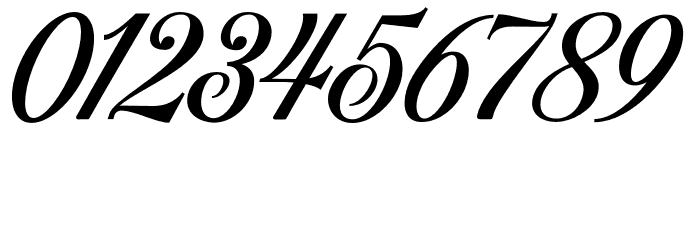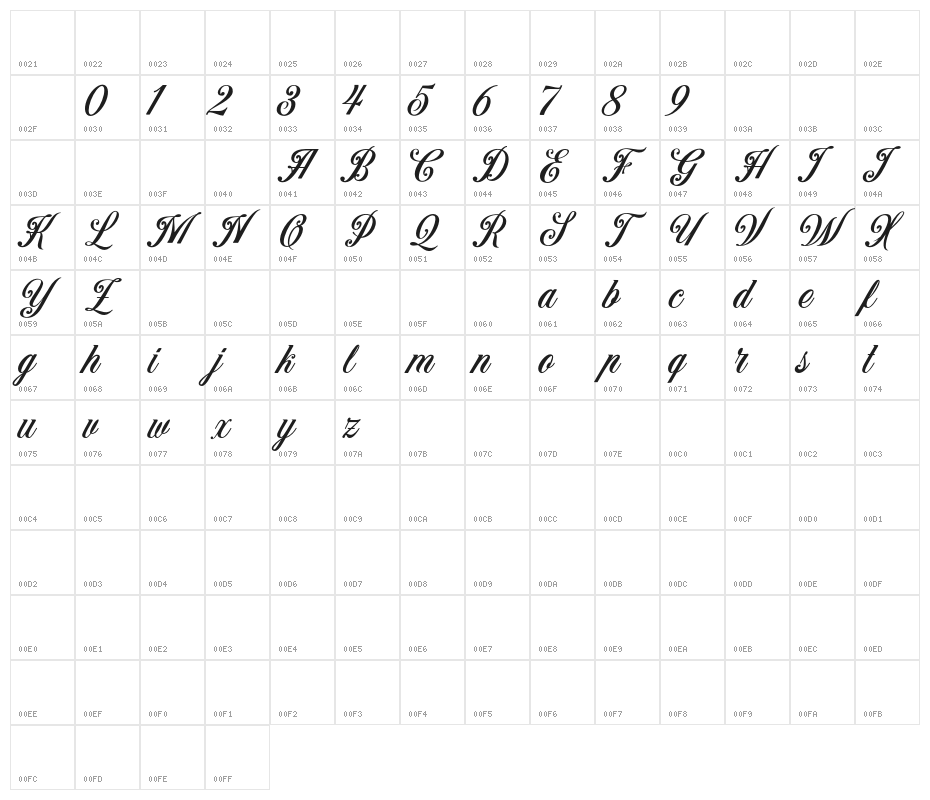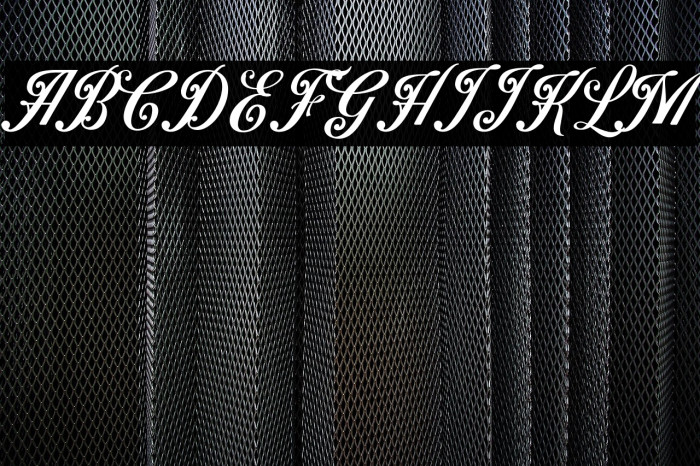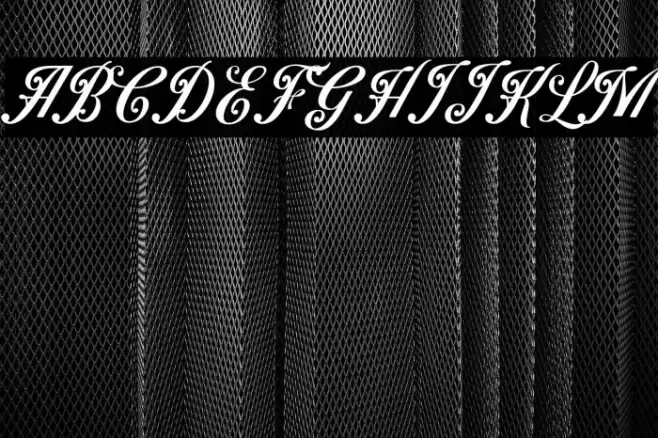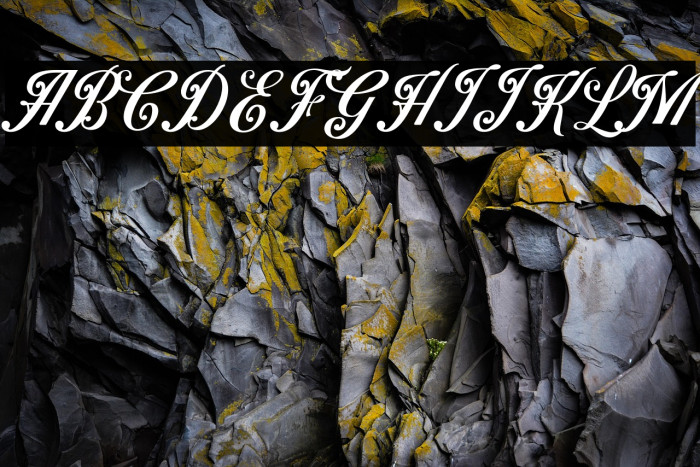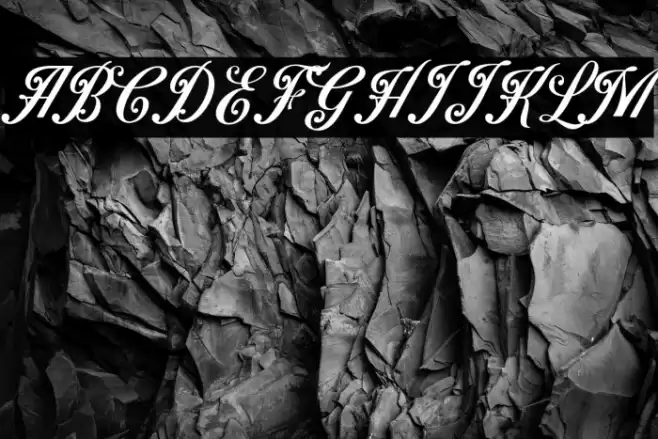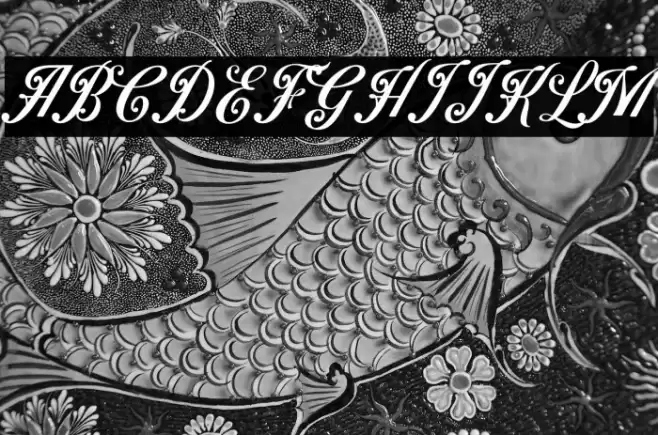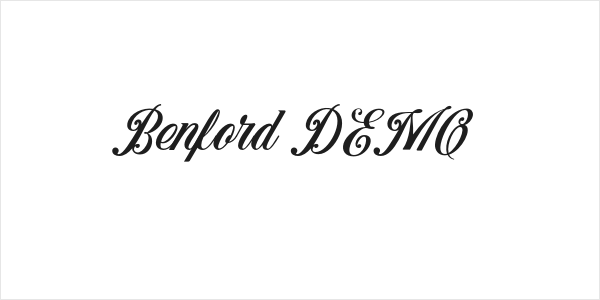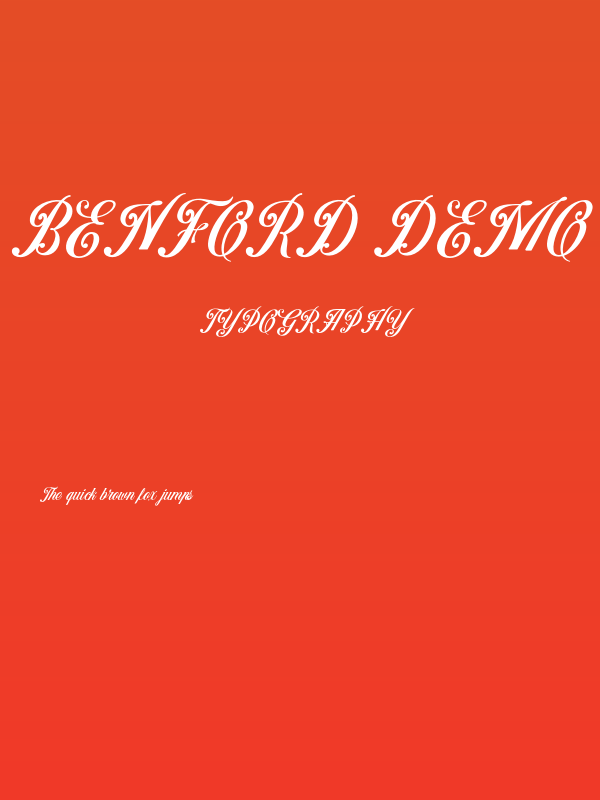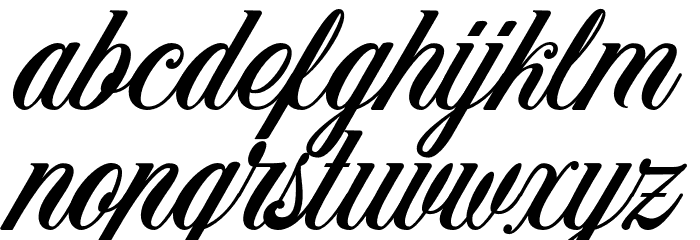
Benford DEMO Font
Benford DEMO Description
This elegant script font features a flowing, cursive style with high contrast between thick and thin strokes. The uppercase letters are ornate, with elaborate swashes and flourishes that give a sense of sophistication and formality. The lowercase letters maintain a smooth, connected flow, enhancing readability while retaining a decorative flair. The numerals are styled to match the letterforms, with a consistent slant and graceful curves. This font exudes a sense of luxury and tradition, making it ideal for formal invitations, branding, and high-end product packaging.